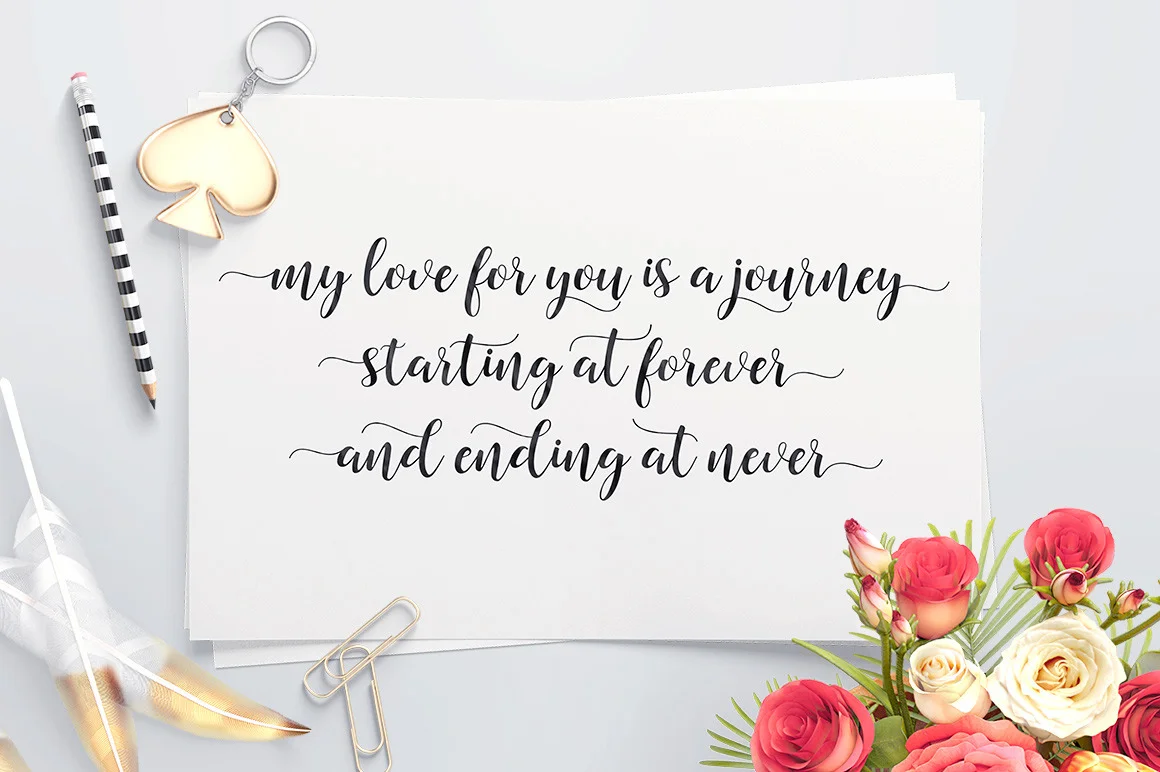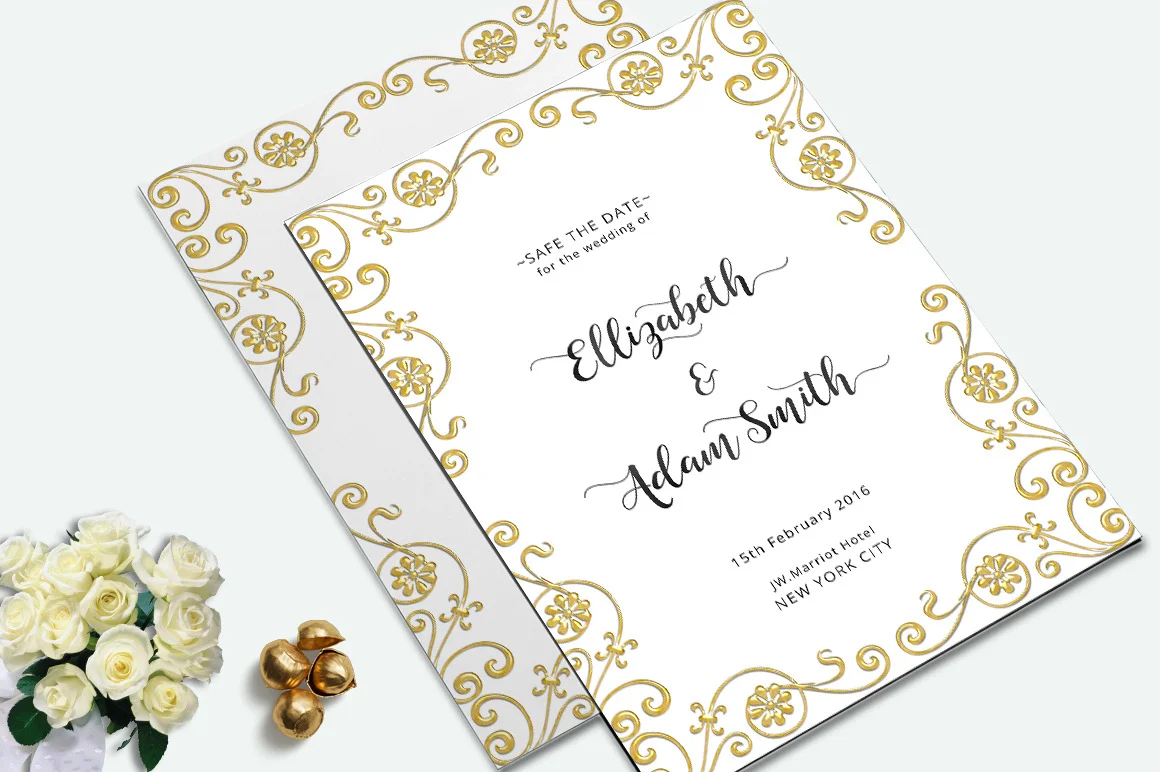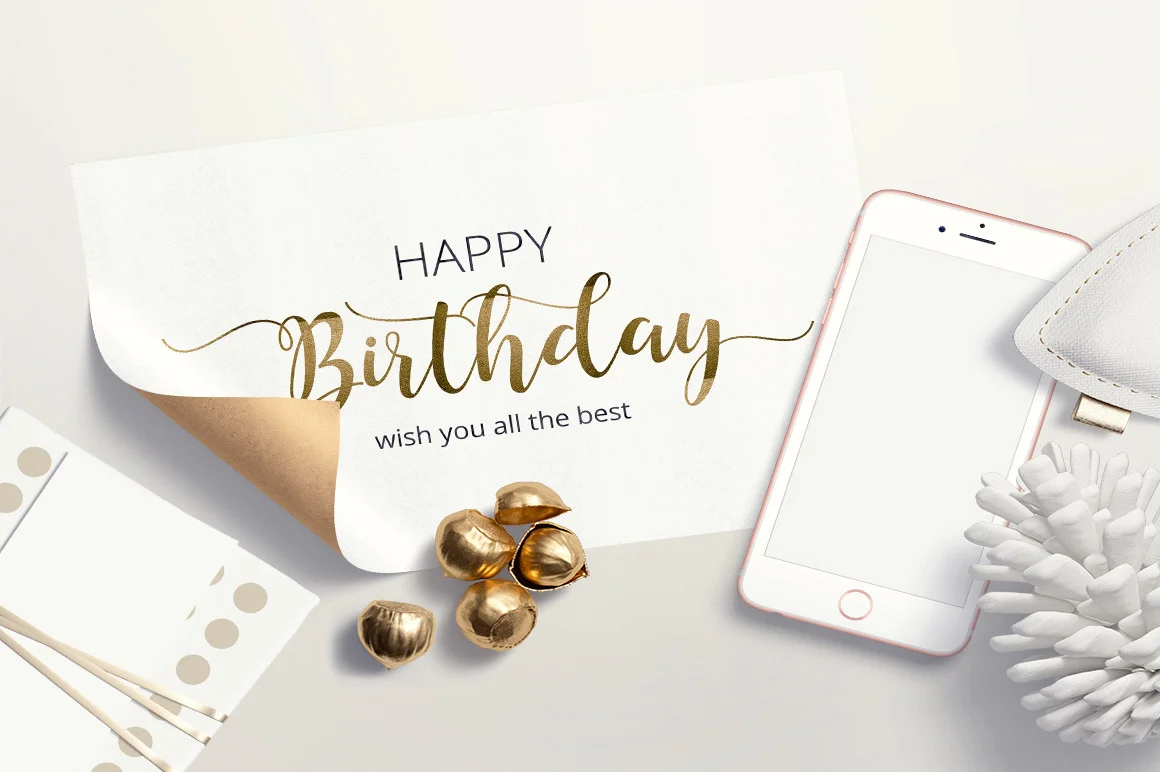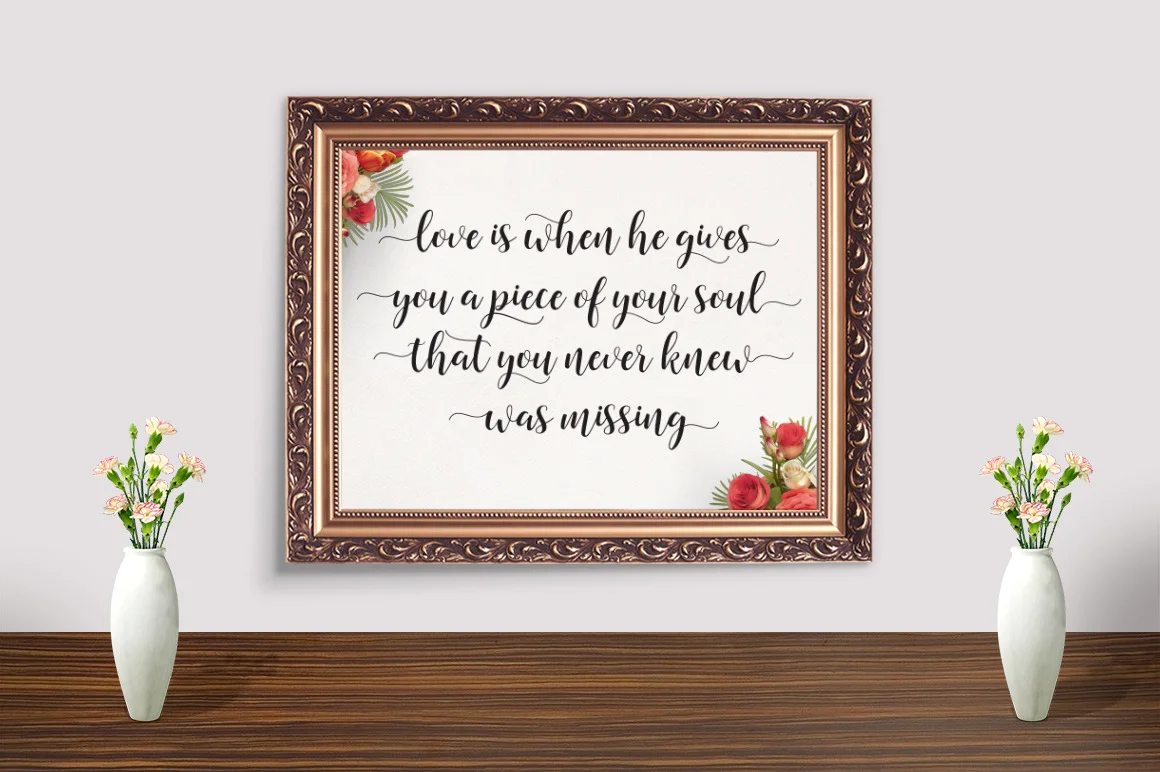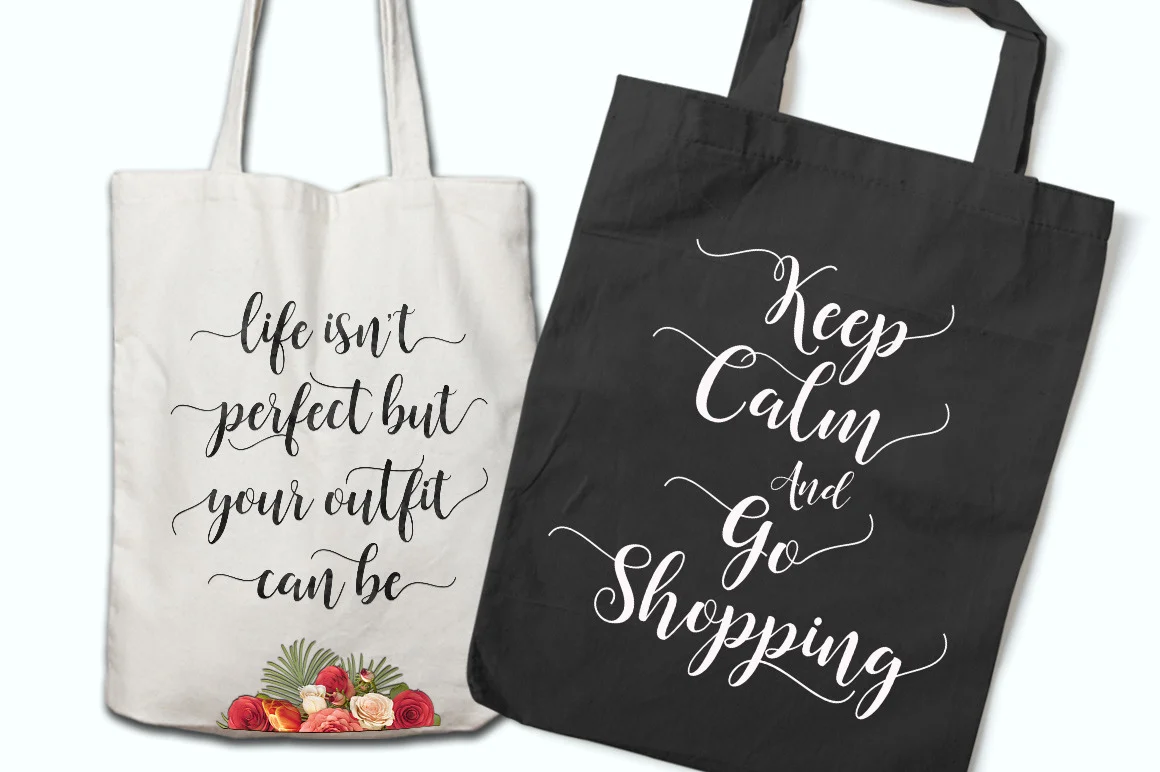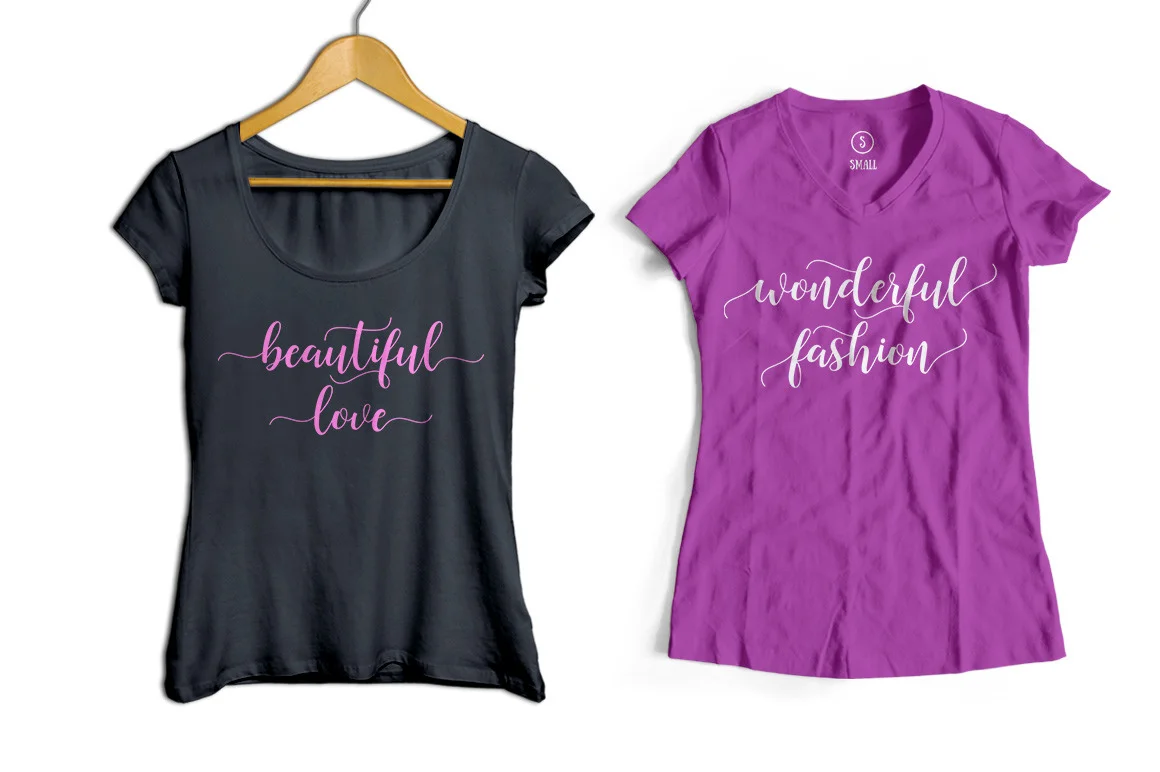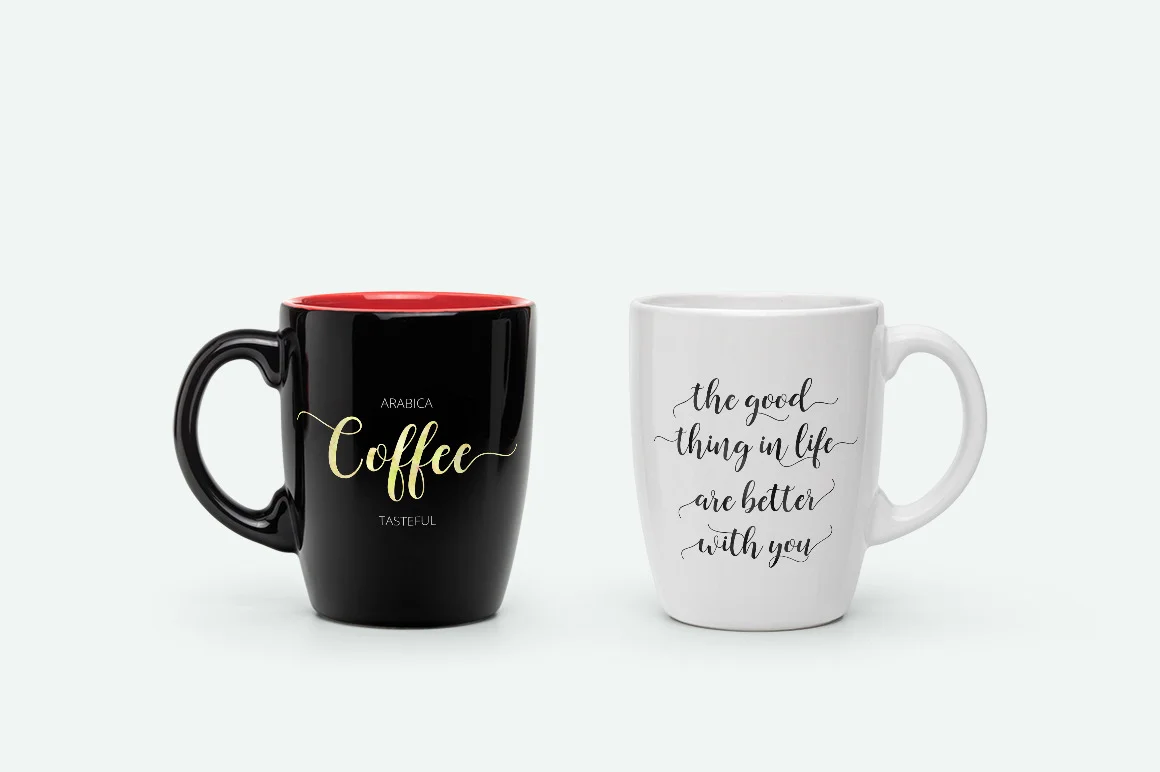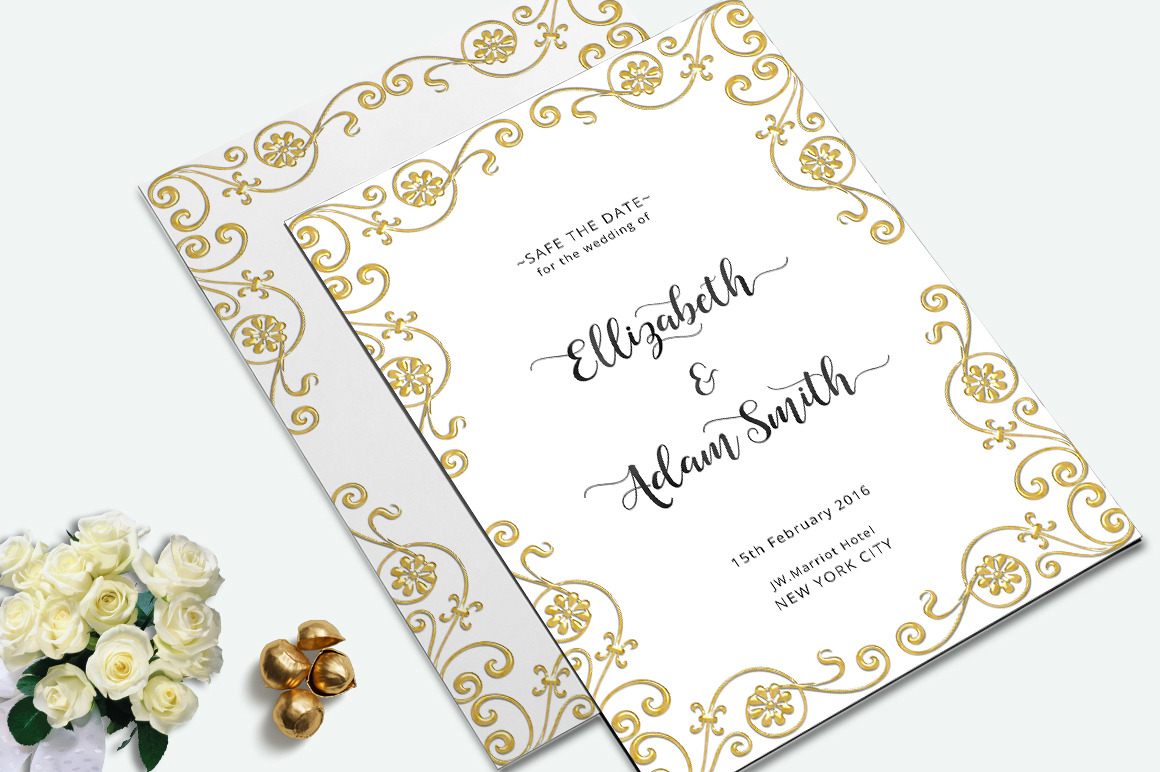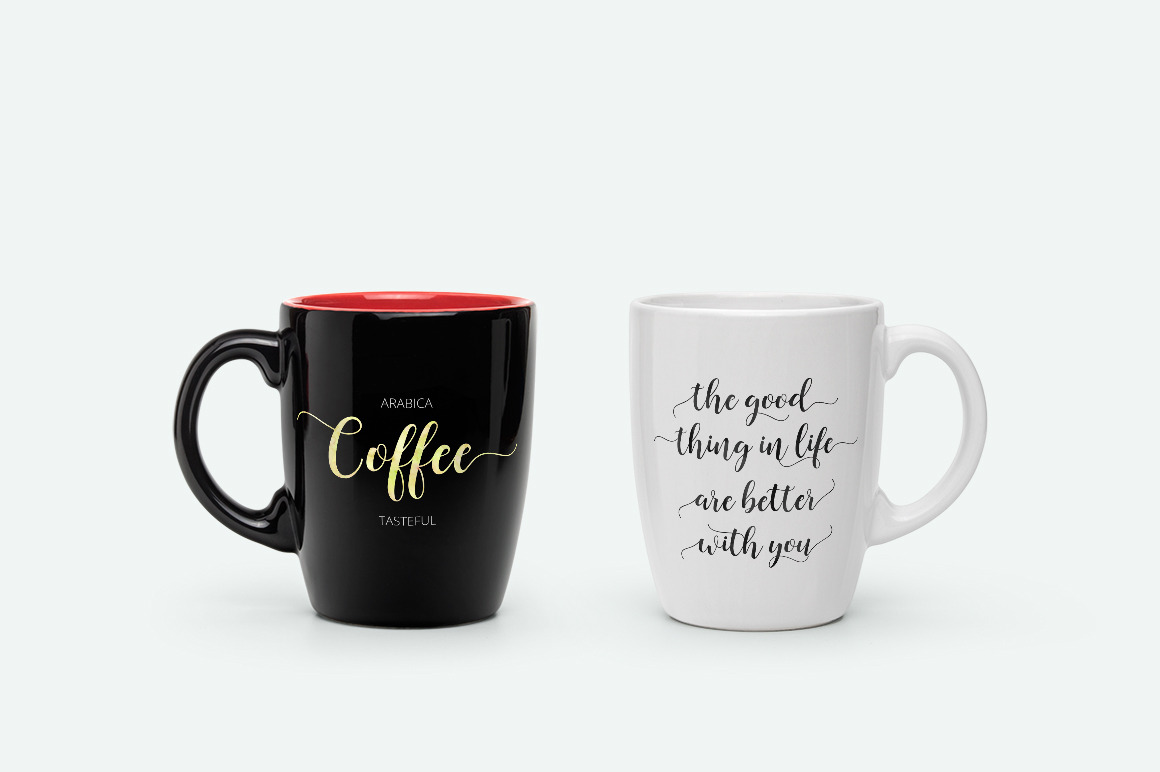
Starlight Script Font
Starlight Script - a new fresh & modern script with a handmade calligraphy style, decorative characters and a dancing baseline! So beautiful on invitation like greeting cards, branding materials, business cards, quotes, posters, and more! Starlight come with 536 glyphs. The alternative characters were divided into several Open Type features such as Swash, Stylistic Sets, Stylistic Alternates, Contextual Alternates, and Ligature. The Open Type features can be accessed by using Open Type savvy programs such as Adobe Illustrator, Adobe InDesign, Adobe Photoshop Corel Draw X version, And Microsoft Word. And this Font has given PUA unicode (specially coded fonts). so that all the alternate characters can easily be accessed in full by a craftsman or designer Features : Initial Alternates Contextual Alternates Standard ligatures Unique ligatures Stylistic Alternates Stylistic sets Basic Latin A-Z and a-z Numbers International Symbols Support Files included: Starlight.otf Starlight.ttf Sandhya Demo Version